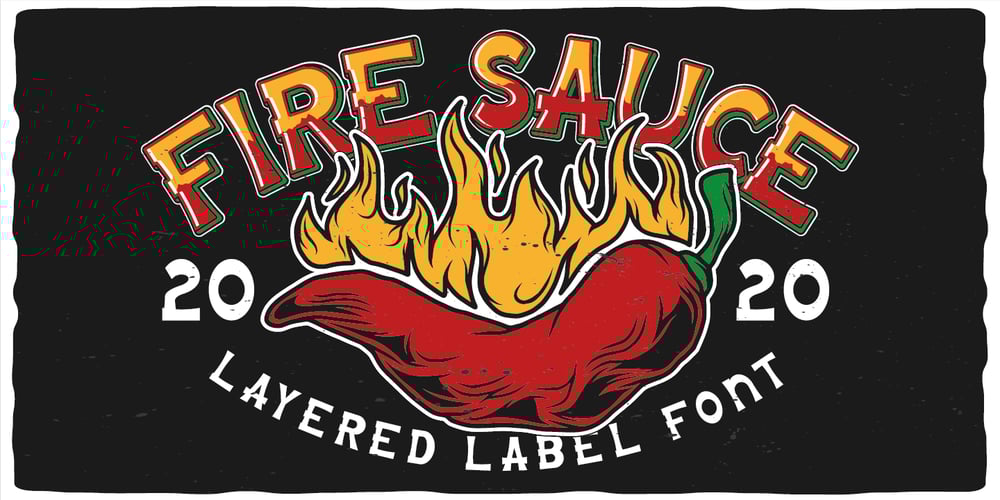
Fire Sauce Font Family was designed by Oleg Voznyy and published by Vozzy. Fire Sauce contains 6 styles and family package options. Introducing a vintage look label font named “Fire Sauce”. This layered family includes six styles – Base, Rough, Outline, Fill, Shadow and Shine. This font will be great on any retro design like posters, t-shirts, labels, logos, and more.